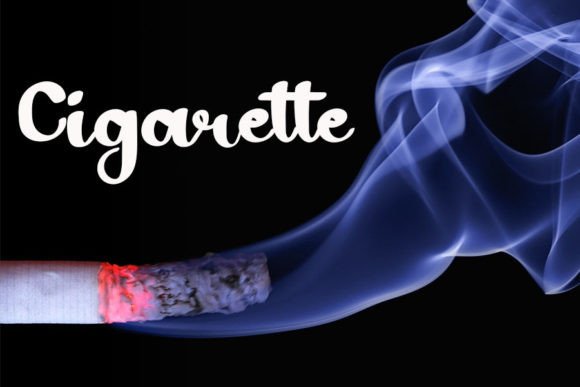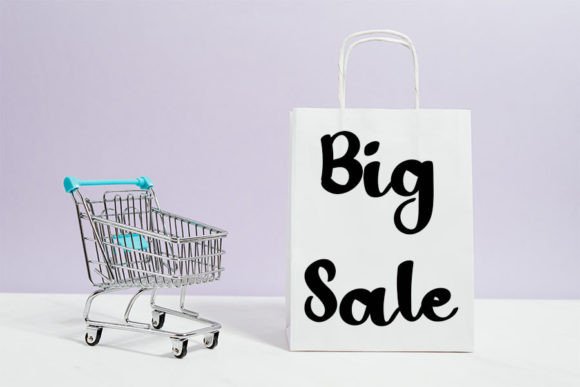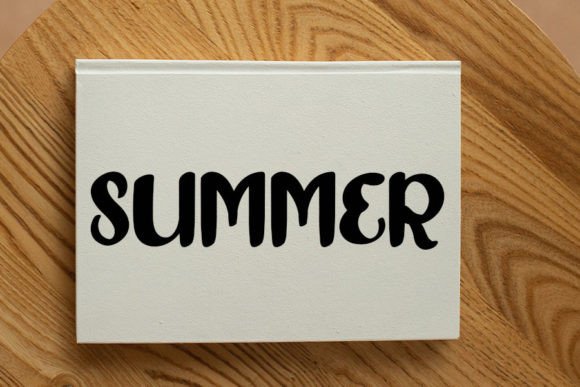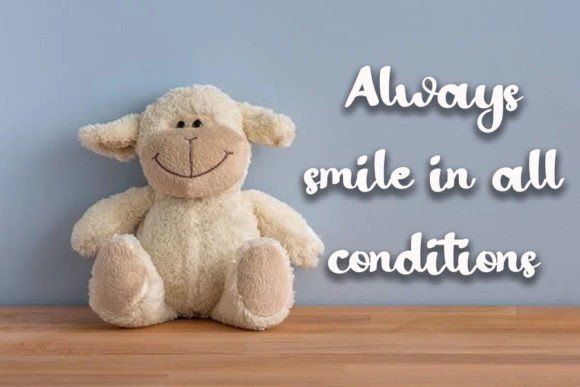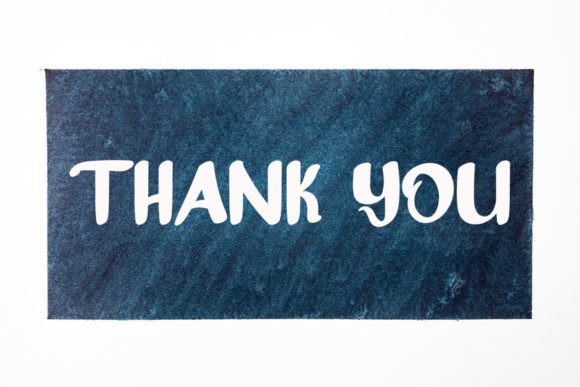
Heavy Font
A Magical Handwritten Font with Elegance
Heavy Font is a magical handwritten typeface designed with a touch of elegance. Its clean, yet quirky design makes it perfect for a wide variety of creative projects, from logos to branding, social media, and DIY crafts. Whether you’re looking to add a personal touch to your brand identity or bring a unique flair to your creative designs, this font offers the ideal balance of elegance and charm.
Perfect for Logos and Branding
For logos and branding, the Heavy Font is the ideal choice. Its bold yet elegant handwritten style brings a personalized and memorable touch to your brand identity. Whether you’re designing a luxury brand logo, creative business identity, or startup materials, this font adds a distinctive, professional edge to your branding. The quirky design gives your business a unique and approachable feel, while still maintaining a high-end appearance.
Great for Social Media and Digital Content
For social media and digital content, the Heavy Font adds a playful and elegant charm to your designs. Whether you’re creating Instagram posts, Facebook ads, Pinterest pins, or blog graphics, this font ensures your content stands out with style. Its bold and easy-to-read design makes it perfect for eye-catching social media content that grabs attention. Use it to add personality to your brand or to create engaging content that connects with your audience.
Ideal for Crafty DIY Projects
For crafty DIY projects, the Heavy Font adds a fun, artistic touch to your designs. Whether you’re creating scrapbooks, greeting cards, home decor items, or gift tags, this font helps bring your creative ideas to life with its charming, handwritten style. Its quirky yet clean lines make it the perfect choice for any craft that needs a personalized, whimsical touch. Whether you’re making holiday crafts or handmade gifts, the Heavy Font is versatile enough to fit all your creative needs.
Versatile, Legible, and Bold
Despite its elegant and quirky design, the Heavy Font remains legible and easy to use. Its clean strokes and consistent letterforms ensure that your text remains clear and readable, even for longer passages or smaller sizes. Whether you’re using it for headlines, captions, or body text, this font strikes the perfect balance of creativity and readability, making it suitable for a wide range of design applications, from print to digital media.
The Heavy Font is easy to use and integrates smoothly into most design software. Whether you’re working on logos, branding, social media posts, or DIY projects, this font ensures your designs look polished and professional while maintaining a playful, unique touch. Its versatility makes it perfect for both print and digital media, giving you the flexibility to use it across various creative projects with ease.
Add Magic and Elegance to Your Designs with Heavy Font
If you’re looking for a magical, elegant handwritten font that adds a quirky touch to your designs, the Heavy Font is the perfect choice. Whether you’re designing logos, branding materials, social media content, or DIY projects, this font brings a personalized, creative flair to your work. Let the Heavy Font help you create memorable, engaging designs that leave a lasting impression.